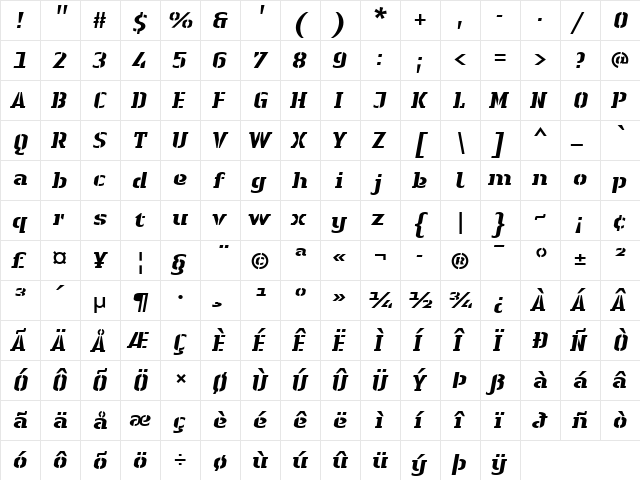
LTAuthenticStencil Heavy Italic
Design Context for LTAuthenticStencil Typeface
LTAuthenticStencil has the rough pragmatism of spray-painted stencil signage, adding a raw, street-level authenticity to designs. Its italic angle brings a sense of urgency and motion to the letterforms.
A strong choice for packaging that needs edge, warehouse aesthetics, and rough-and-ready visual identities.
Pro Tip: Use LTAuthenticStencil at large sizes on packaging, posters, or apparel where the stencil cutaways read clearly. Avoid small sizes where those gaps become visual noise.